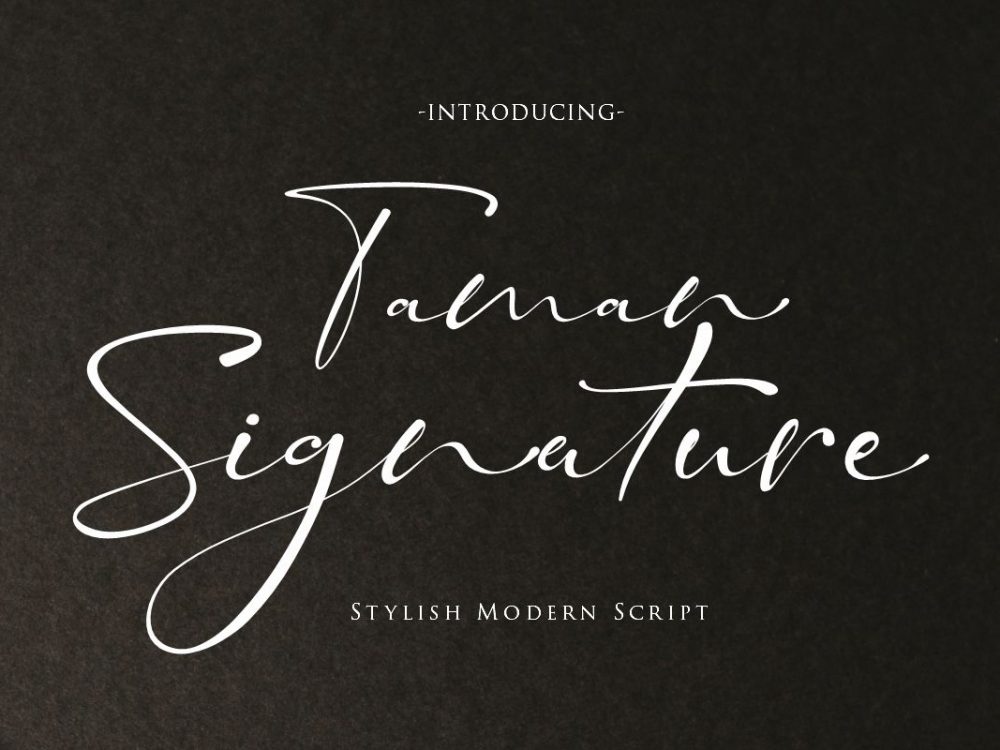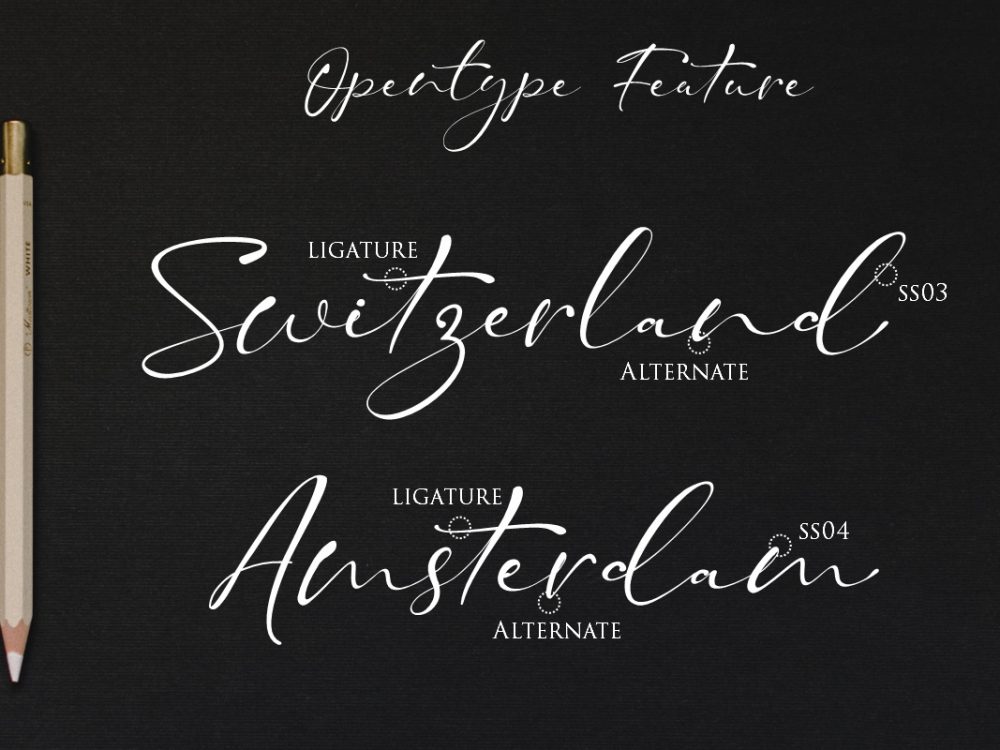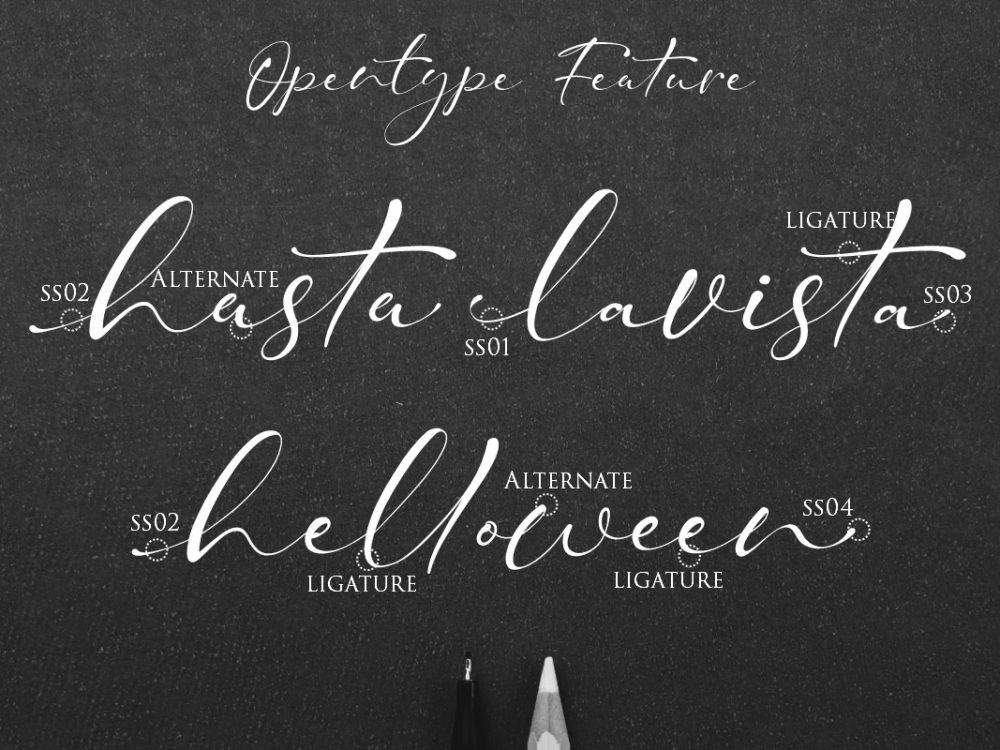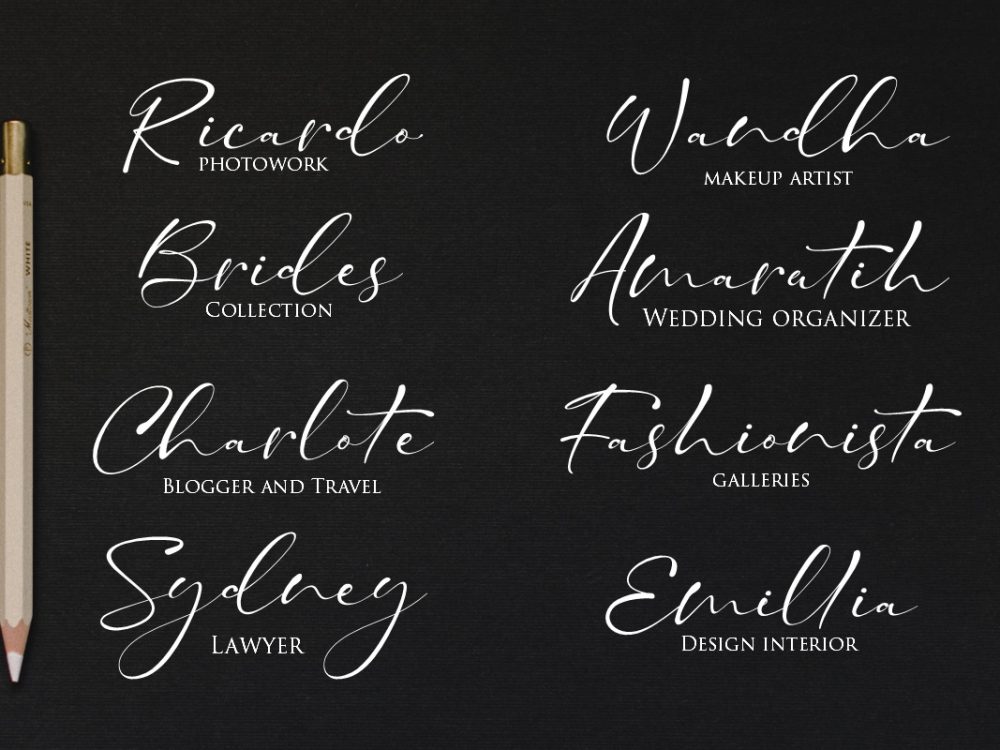
Taman Signature Free Font
Taman Signature Free Font is an interesting handwritten script that features an elegant calligraphic style. This font is well suited for creating various projects that require a scripted font. Use this font to create memorable posters, wedding invitations, greeting cards, branding, flyers, t-shirt and pillow prints, and more. If you like it don’t forget to check out the full version.